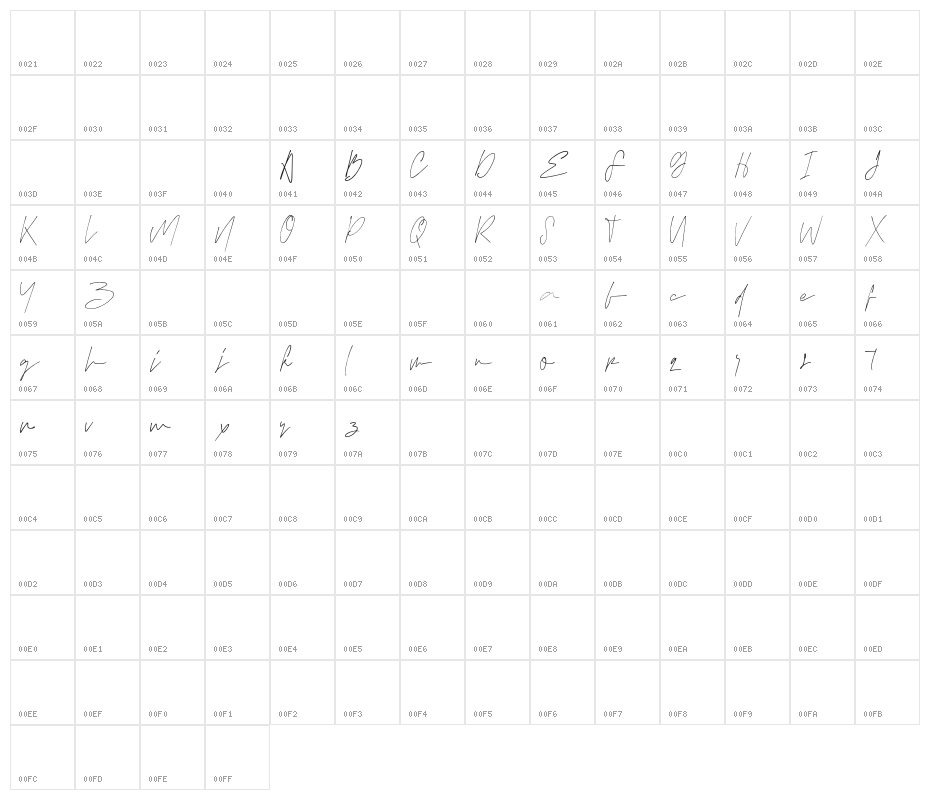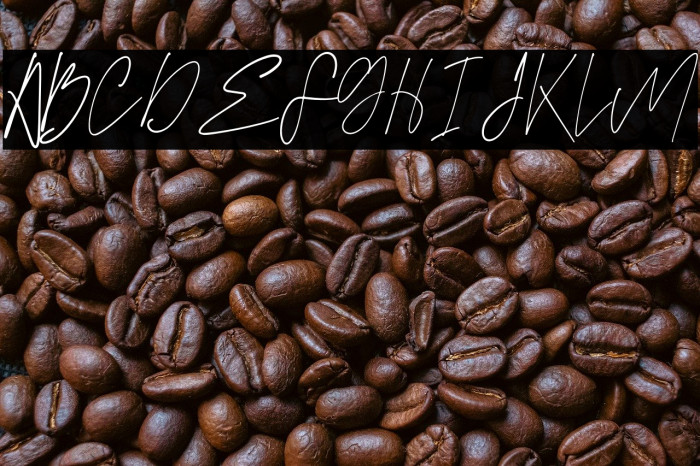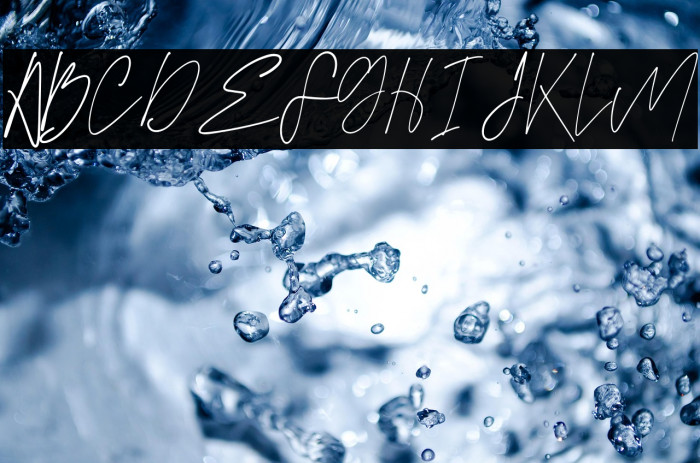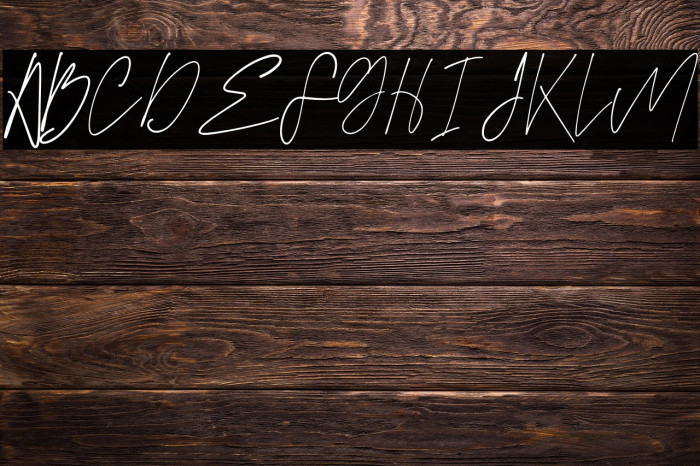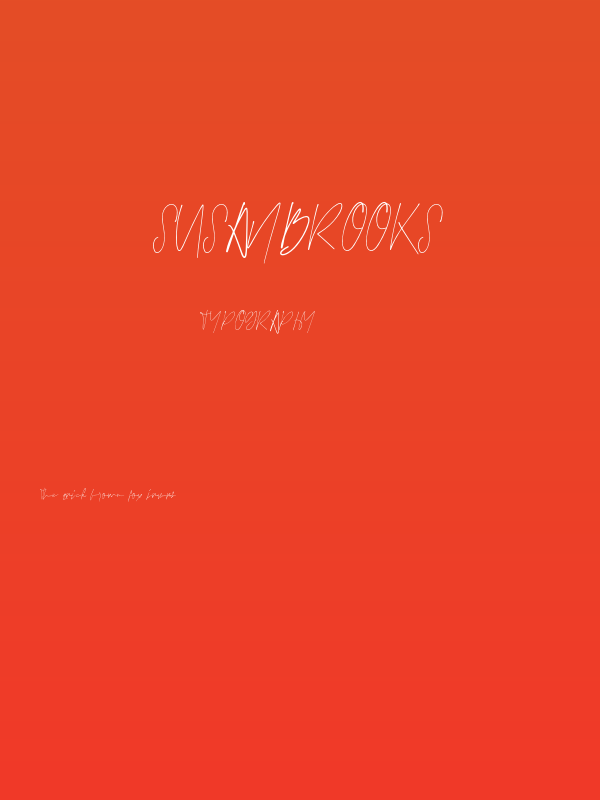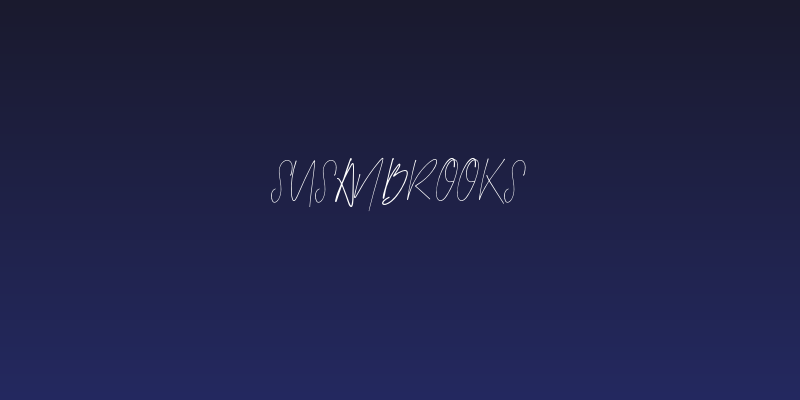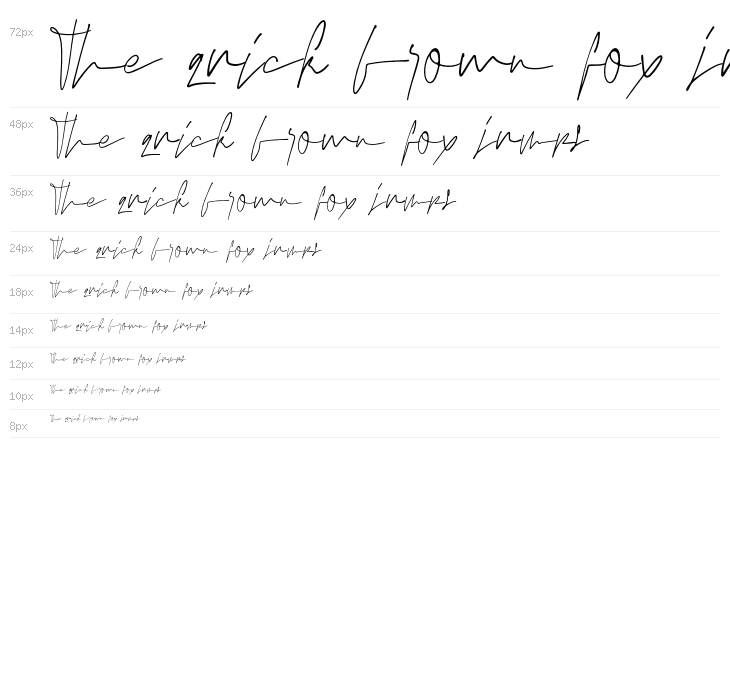
Susanbrooks Font
Susanbrooks Description
This font features a dynamic and fluid handwritten style, characterized by its elegant and flowing script. The letters are connected in a natural and seamless manner, giving it a personal and artistic touch. The strokes vary in thickness, adding a sense of movement and energy to the text. The uppercase letters are bold and expressive, while the lowercase letters maintain a consistent rhythm and grace. This font exudes a sense of creativity and spontaneity, making it ideal for projects that require a personal and artistic flair.
| Overall Style | Artistic |
| Use Case | Logos, Invitations, Artistic projects |
| Proposed Projects | Ideal for wedding invitations, personal branding, artistic projects, and creative logos. |